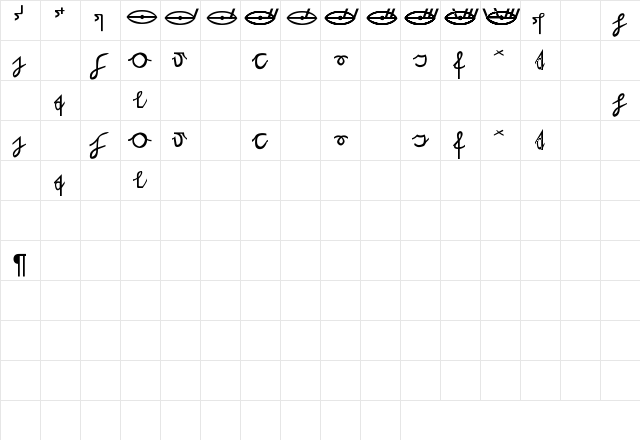
Daehej Handwriting Regular
Design Context for Daehej Handwriting Typeface
Daehej Handwriting brings a calligraphic fluidity to the page — its connecting strokes and expressive curves give it an unmistakably human quality.